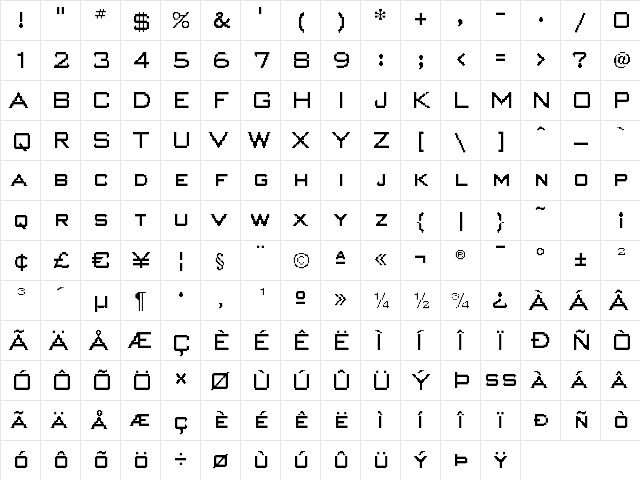
RasterBankTwentyOne Regular
| Foundry | Mark Simonson |
| Designer | Mark Simonson |
Design Context for RasterBankTwentyOne Typeface
RasterBankTwentyOne is a composed and adaptable typeface that performs quietly and consistently across a wide range of design contexts.